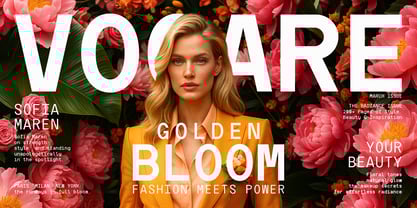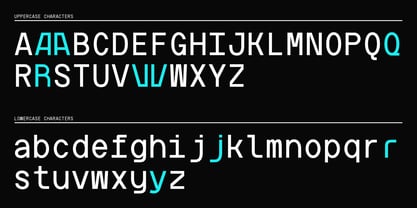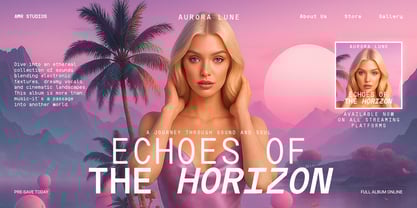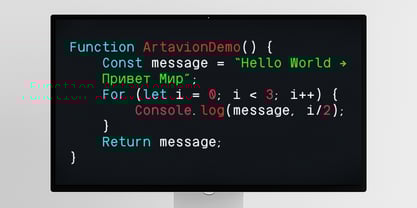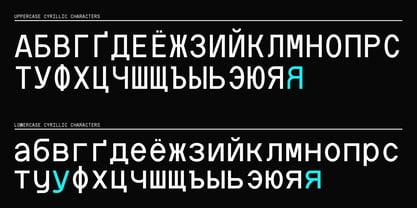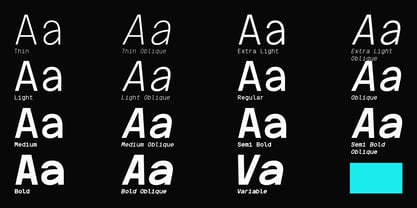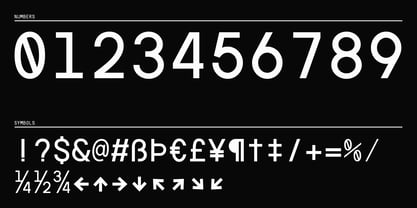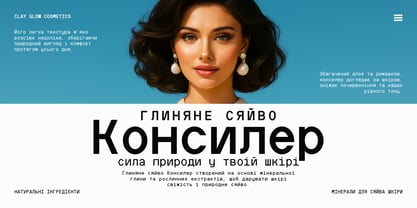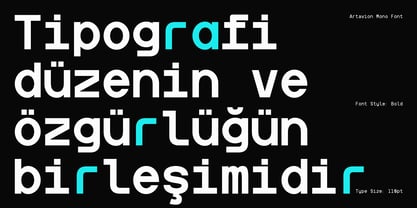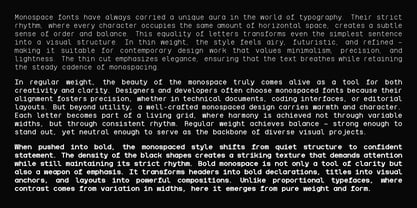
Artavion Mono
Artavion Mono is a modern monospace typeface reimagined for the world of graphic design and expressive branding. Unlike traditional coding fonts, Artavion Mono blends precision structure with creative alternates and retro-futuristic flair, giving designers the power to transform minimal layouts into bold statements.
Its variable typography system lets you fine-tune weight and style in real time—making it just as adaptable for dynamic layouts, editorial spreads, and kinetic typography as it is for timeless branding.
With extended Latin and Cyrillic multilingual support, Artavion Mono is perfect for agencies and global brands that need design consistency across markets. Every character balances clarity with personality, giving your work the expressive edge that today’s forward-thinking brands demand.
BEST FOR:
• Bold editorial design.
• Expressive branding & campaigns.
• Futuristic interfaces & UI/UX systems.
• Designers seeking graphic design flexibility.
• Posters, motion graphics, and kinetic typography.
Artavion Mono is not just another monospace font, it’s a graphic design tool where brutalist impact, retro-futurism, and sustainable sophistication meet in one adaptable typeface.